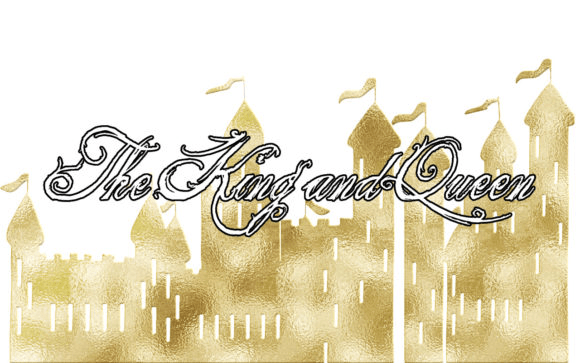
The King and Queen
Font Family by Fractal Eye
The King and Queen is an ornate calligraphic script with a formal, vintage feel. Its flowing cursive structure, intricate flourishes, and decorative swashes give it a refined, ceremonial presence that feels both elegant and expressive.
This is a strong choice for work that calls for a sophisticated handwritten look, from invitations and event pieces to packaging, branding, signage, and decorative display typography. The overall style leans classic and historic, making it especially appealing when you want lettering that feels polished, ornamental, and full of character.
Designed by Fractal Eye, this family is offered here as a single font style. With its detailed script construction and richly flourished finish, it brings a graceful sense of occasion to headlines, names, monograms, and other standout text.